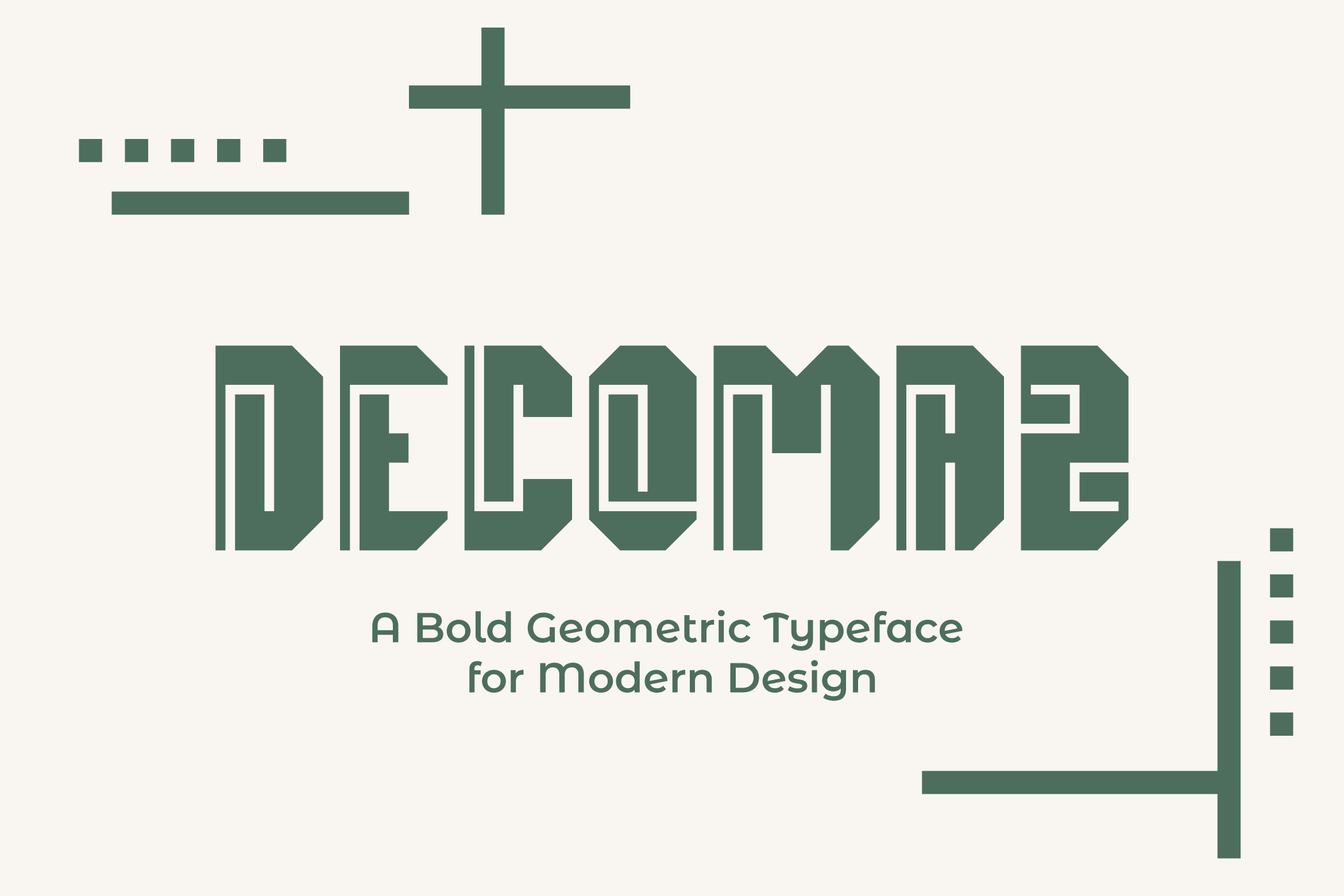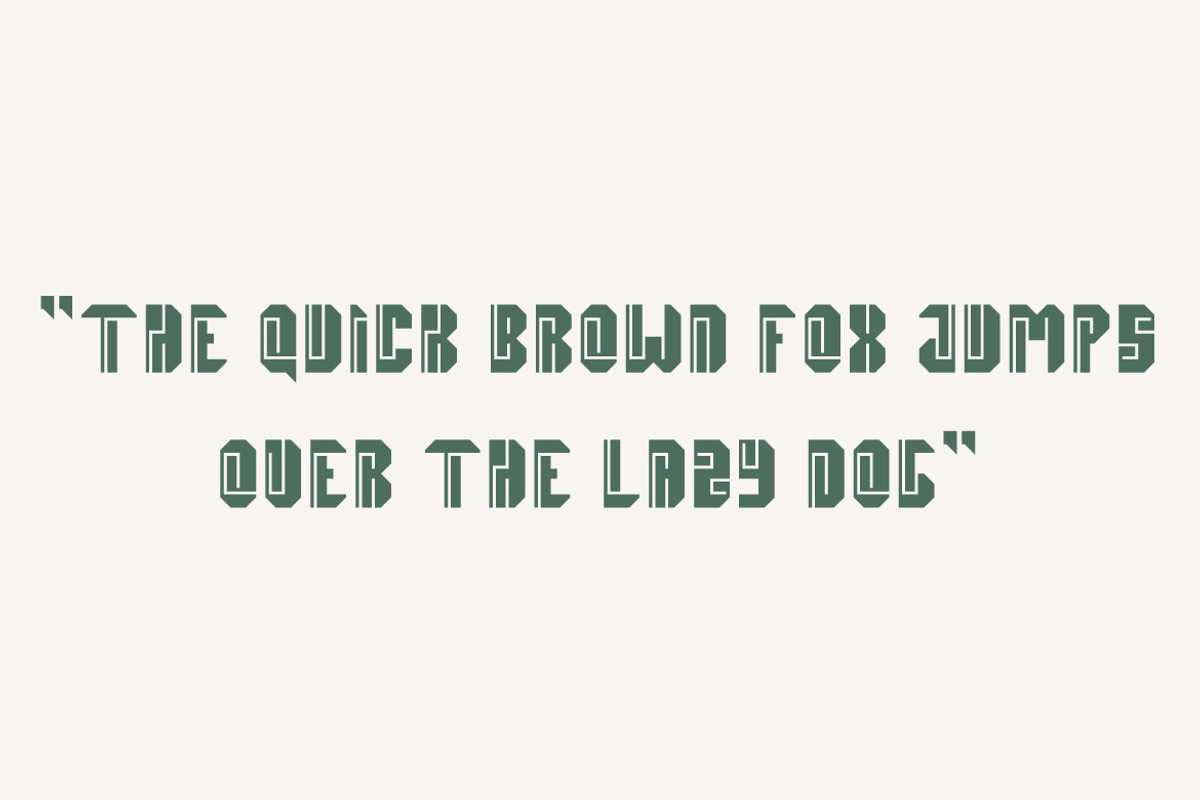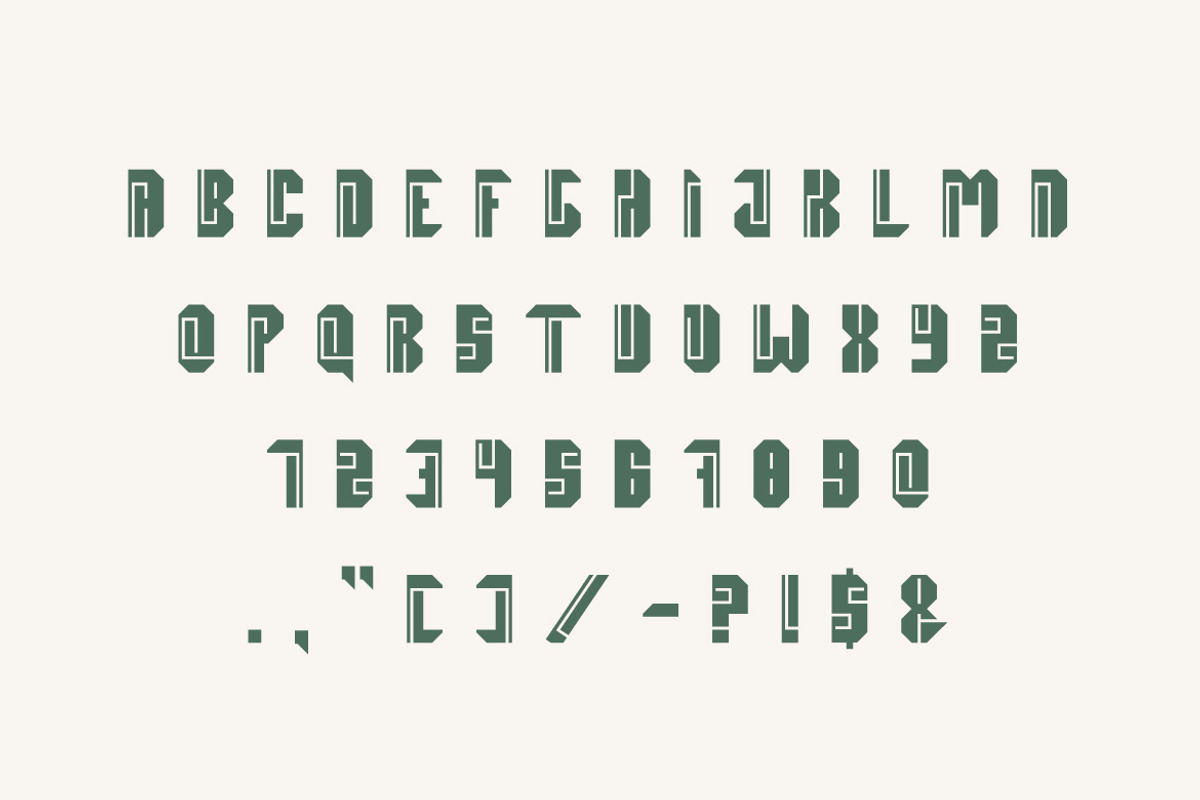
Decomaz – Modern Display Typeface
Decomaz is a bold, modern geometric display typeface designed for strong visual impact. It features sharp angles, structured letterforms, and a futuristic architectural style that makes it perfect for contemporary branding and high-contrast designs.
This font works exceptionally well for logos, posters, headlines, packaging, technology brands, streetwear, editorial layouts, and digital interfaces. Its clean construction and distinctive shapes ensure excellent readability while maintaining a powerful and unique identity.
Decomaz is ideal for designers looking for a minimal yet expressive font that stands out without being noisy.